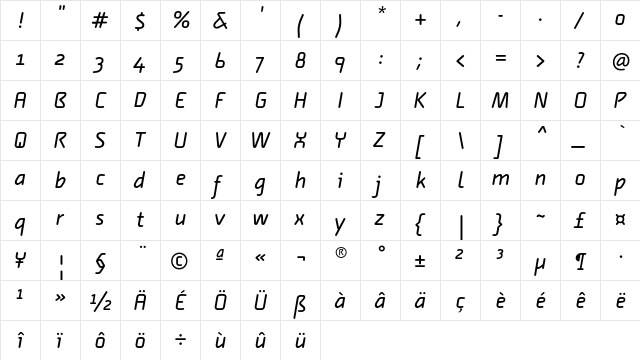
AlegaGreek-NormalItalic Regular
| Foundry | Siegfried Rueckel, published by FontShop International for the FontFont library |
Design Context for AlegaGreek-NormalItalic Typeface
AlegaGreek-NormalItalic offers clean, dependable letterforms without strong stylistic allegiance, making it a practical choice for designers who need flexibility. Its italic angle brings a sense of urgency and motion to the letterforms.
Pro Tip: Use AlegaGreek-NormalItalic for emphasis, pull quotes, and subheadings where its slanted energy can add rhythm to the layout.